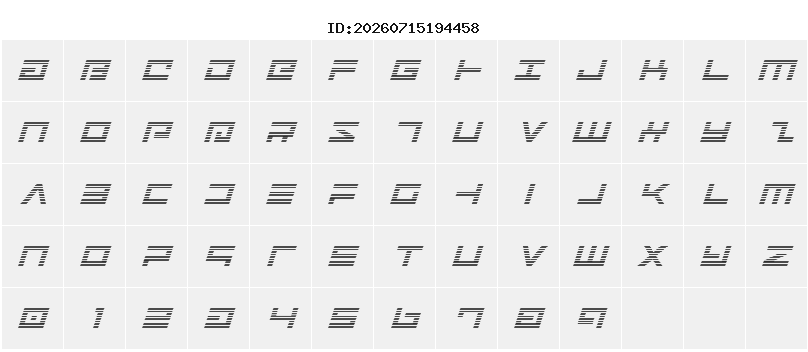
Avenger Gradient Italic Preview
• Font Name: Avenger Gradient Italic
• Full Font Name: Avenger Gradient Italic
About Avenger Gradient Italic.ttf
Avenger Gradient Italic.ttf is a modern, elegant sans-serif font designed for ultimate readability and visual harmony. Perfect for branding, headlines, web design, and print materials.